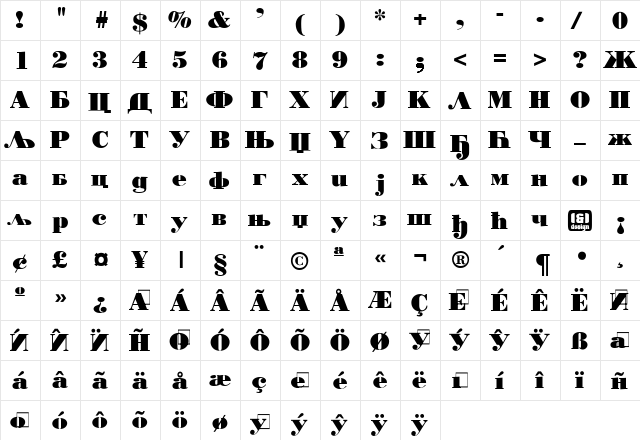
Bodoni PosterD&DCirilica Black Font Preview
Bodoni PosterD&DCirilica Black
Design Context for Bodoni PosterD&DCirilica Typeface
Bodoni PosterD&DCirilica takes a measured approach to typography — its balanced proportions and neutral character make it a reliable workhorse for both digital and print work.